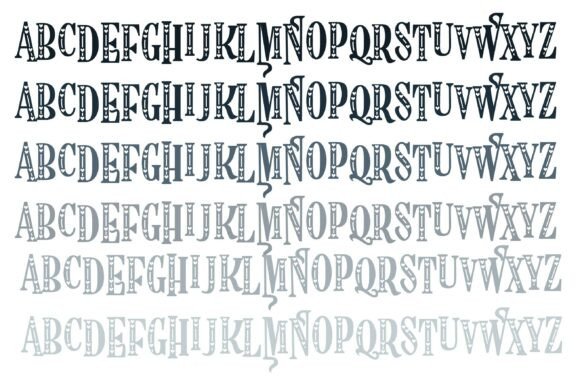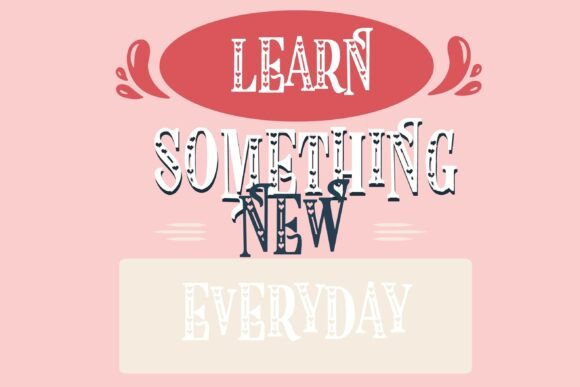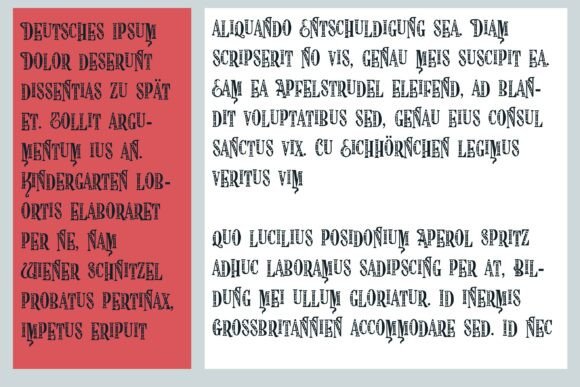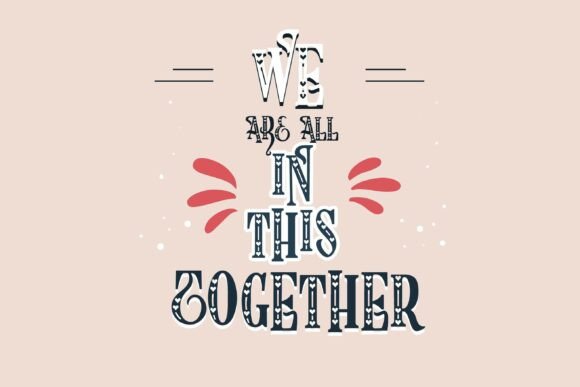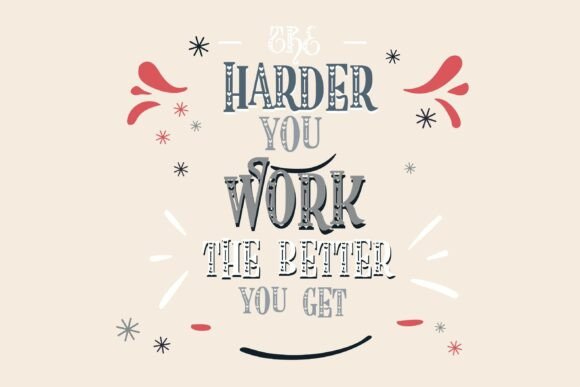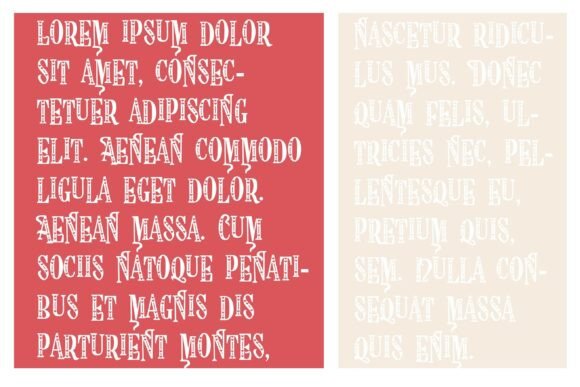
Introduction to Politely Passionate Font
Have you ever stared at a blank canvas, searching for the perfect font to bring your creative project to life? That’s exactly what happened to me when I first laid eyes on the Politely Passionate Font. Its delicate heart-patterned inlay and structured elegance immediately caught my attention, and I knew I had to dive deeper.
As designers, we’re always on the lookout for high-quality design resources that can elevate our work and make it stand out. The Politely Passionate Font is one such treasure, offering a unique balance between formal sophistication and playful love. With its tall, condensed letterforms and transparent background, it’s a versatile choice for a variety of applications, from magazine covers to luxury event posters.
Whether you’re looking for a free download or a premium font to add to your design arsenal, the Politely Passionate Font is a valuable addition to any designer’s toolkit. In this article, we’ll take a closer look at what makes this font so special and explore its potential uses in your next creative project.
Key Features of Politely Passionate Font
- High-quality design: This font is crafted with precision and care to provide a sophisticated and elegant look for your creative project.
- Transparent background: The Politely Passionate Font features a transparent background, making it easy to layer over any image or design element.
- High-resolution design: The Politely Passionate Font is designed at 300 DPI, ensuring crisp and clear text, even at large sizes.
- Unique characteristics: The font’s subtle flair and elegant curves make it an excellent choice for designers looking to add a touch of sophistication to their creative project.
- Perfect for creative projects: Whether you’re working on a brochure, poster, or website, the Politely Passionate Font is an excellent choice for designers looking to add a touch of elegance and sophistication.
Honest Review: Politely Passionate Font
I recently came across the Politely Passionate Font and I must say, it’s a lovely addition to my design resource library. The font is perfect for creative projects that require a touch of elegance and sophistication. One of the standout features of this font is its high quality and clear readability, making it ideal for projects with transparent backgrounds.
Here are some of the things that I love about the Politely Passionate Font:
- ✨ The font is highly versatile and can be used for a wide range of creative projects, from branding to publishing.
- ✨ The font’s elegant and sophisticated design makes it perfect for projects that require a touch of luxury.
- ⚠️ The font may not be suitable for projects that require a bold or dramatic font style.
- ⚠️ The font may not be available in as many languages as some other fonts on the market.
Overall, I’m thoroughly impressed with the Politely Passionate Font and would highly recommend it to designers looking for a high-quality, elegant font for their creative projects.
Introduction to Politely Passionate Font
Politely Passionate Font is a high-quality design resource that adds a touch of elegance to any creative project. With its transparent background, this font is perfect for designers who want to add a subtle yet impactful element to their work.
Tips for Getting the Most Out of Politely Passionate Font
To get the most out of Politely Passionate Font, use it sparingly to add a touch of sophistication to your designs. Pair it with other fonts to create a unique and eye-catching look.
Common Use Cases for Politely Passionate Font
Politely Passionate Font is perfect for:
- Web design and e-commerce websites